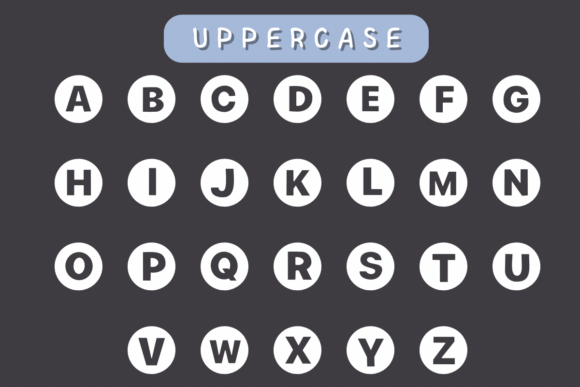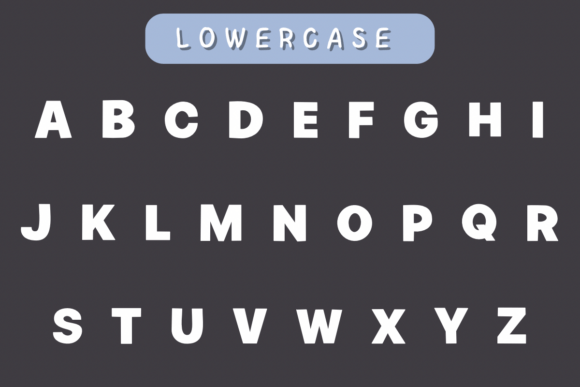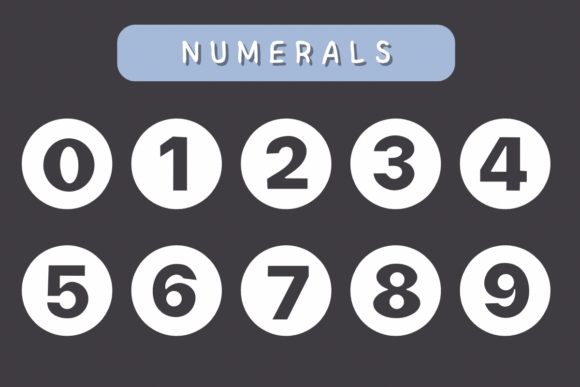
Introduction to Circle Font Font
Font Circle – Decorative Font Step into the world of bold creativity with Font Circle , a playful decorative typeface designed to bring joy and character to any project.
Each letter stands proudly within a circle, creating a clean yet fun visual rhythm that instantly grabs attention Perfect for modern designs that crave balance, color, and personality.